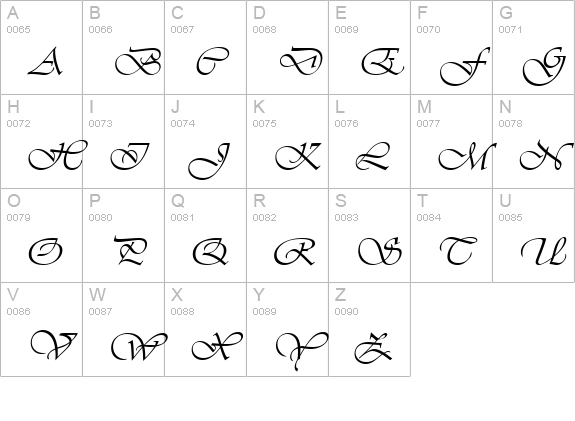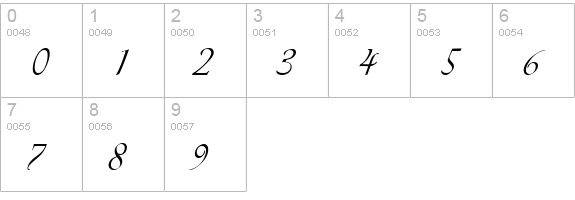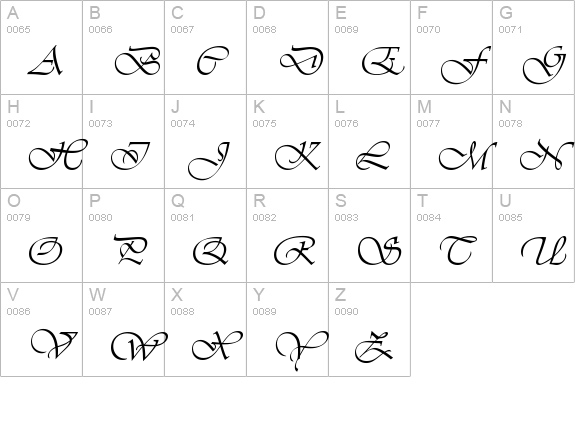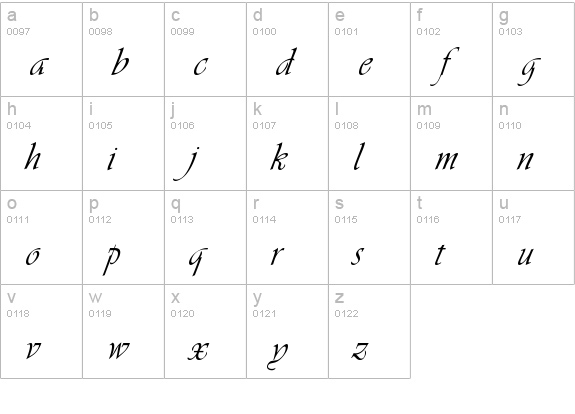
VivaldiD Font Details
Introducing VivaldiD, a captivating and elegant font that will transport your designs to a whole new level of sophistication. With its timeless and graceful strokes, VivaldiD exudes a sense of elegance and refinement that is perfect for any project. This exquisite font combines the classical beauty of traditional calligraphy with a modern twist, resulting in a unique and versatile typeface that is sure to make a lasting impression. Its fluid curves and delicate serifs give VivaldiD a sense of grace and balance, making it the ideal choice for wedding invitations, luxury branding, editorial design, and more. But the best part? VivaldiD is absolutely free! That's right, this exceptional font is freely available to download at FontsMarket.com. Say goodbye to expensive font licenses and hello to creative freedom. With VivaldiD, you can add a touch of elegance to your projects without breaking the bank. Whether you're a seasoned designer looking to elevate your work or a passionate DIY enthusiast exploring the world of typography, VivaldiD is the perfect companion. With its easy-to-read letterforms and extensive character set, you'll have endless possibilities at your fingertips. So why wait? Download VivaldiD today and let your creativity flourish. With this free font, you'll not only impress your clients and audience but also save money in the process. Explore the world of VivaldiD and unlock a world of exquisite design possibilities.